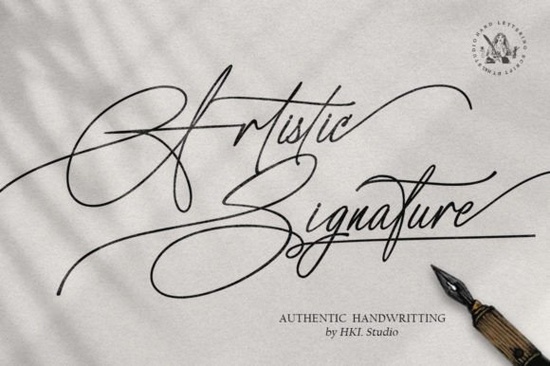
If you’re looking for a script font that feels personal, polished, and just a little bit luxurious, the Artistic Signature Font might be exactly what your next project needs. It’s not one of those stiff, overly perfect typefaces instead, it leans into its hand-drawn charm with flowing curves and subtle variations in stroke width that give it warmth and character. Whether you’re designing wedding invitations, branding a boutique product line, or creating custom merch for print-on-demand, this font adds a refined touch without feeling stuffy.
What makes Artistic Signature stand out from other script fonts?
Most script fonts either feel too rigid or too messy. Artistic Signature finds a sweet spot it’s elegant but approachable, detailed but not overwhelming. The letterforms connect naturally, mimicking real handwriting, which helps your designs feel more human. You’ll notice how certain strokes swell slightly while others taper off that’s intentional. It gives the font depth and movement, making even simple phrases like “thank you” or “with love” feel expressive.
If you’ve used fonts like Starlake Retro Script or Milk Peach, you’ll appreciate how Artistic Signature brings something different to the table. Where Starlake leans vintage and Milk Peach feels soft and playful, Artistic Signature carries a quiet confidence ideal for when you want your text to whisper elegance rather than shout for attention.
Where does this font work best?
Here are some real-world uses where Artistic Signature shines:
- Branding Perfect for logos, packaging, or boutique labels where you want to convey craftsmanship.
- Invitations & Stationery Wedding suites, baby showers, or holiday cards benefit from its graceful flow.
- Print-on-Demand Products Think mugs, tote bags, or art prints with short quotes or names.
- Social Media Graphics Adds personality to quote posts or promotional banners without clashing with photos.
It’s also surprisingly legible at smaller sizes, which isn’t always true for script fonts. That makes it useful for subheadings or captions, not just big display text. If you’re pairing it with another font, try a clean sans-serif something neutral lets Artistic Signature take center stage without competing.
How does it compare to similar fonts on Creative Fabrica?
There’s no shortage of beautiful scripts on Creative Fabrica, but each has its own mood. For example, Bikini Babe is fun and flirty great for summer themes or beachy brands. Nadel Script feels more modern and minimalist, almost architectural in its precision. Artistic Signature sits comfortably between them: more refined than Bikini Babe, more organic than Nadel.
If you’re browsing the script fonts category, you’ll find plenty of options, but few strike the same balance of polish and personality. It doesn’t try too hard it just works.
Any tips for using Artistic Signature effectively?
A few small adjustments can make a big difference:
- Spacing matters. Don’t cram letters together give them room to breathe, especially in longer words.
- Use sparingly. One or two lines look stunning. Three paragraphs? Probably not.
- Pair with texture. This font looks gorgeous over watercolor backgrounds, linen textures, or soft gradients.
- Try all-caps for impact. Normally you’d avoid caps in scripts, but Artistic Signature’s uppercase letters are designed to connect beautifully.
This isn’t a font for every project and that’s okay. It’s best suited for creators who value subtlety and sophistication. Small business owners crafting their own branding, Etsy sellers personalizing gifts, or designers working on editorial layouts will get the most out of it. Even hobbyists making birthday cards or scrapbook pages will find it adds that “just right” finishing touch.
If your last project felt a little flat or generic, swapping in Artistic Signature could be the simplest way to inject some soul into it no design degree required.